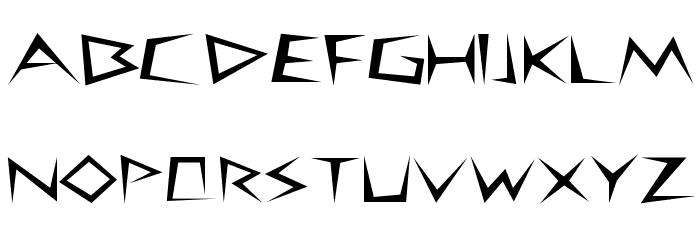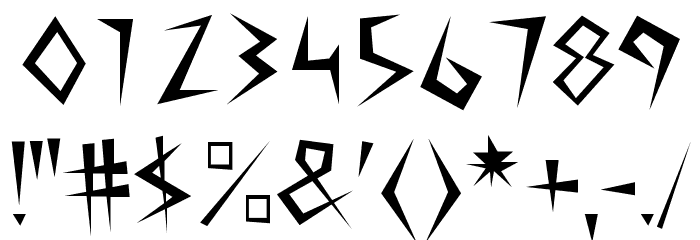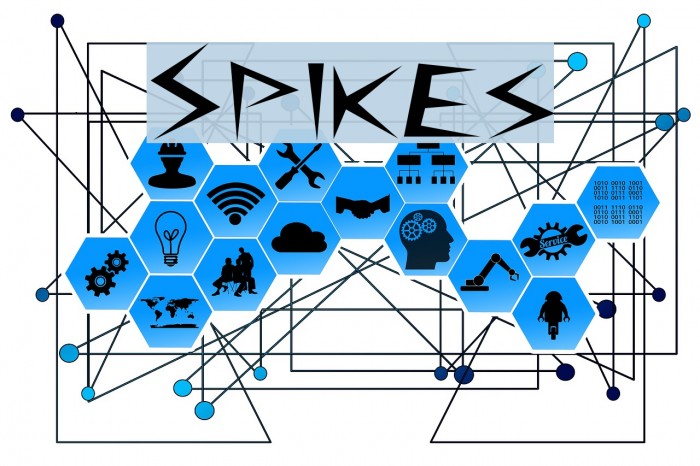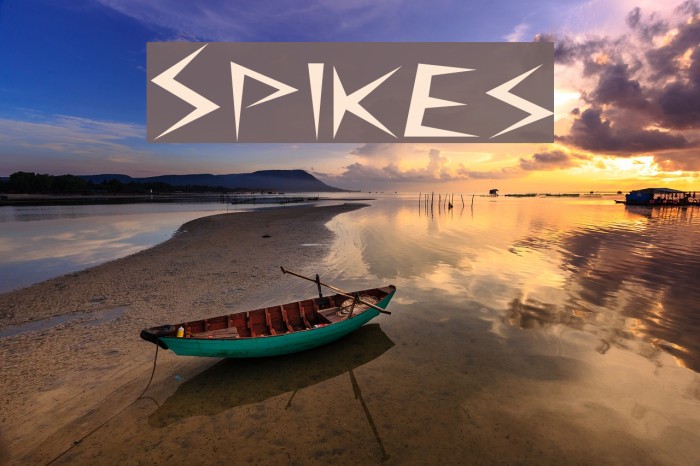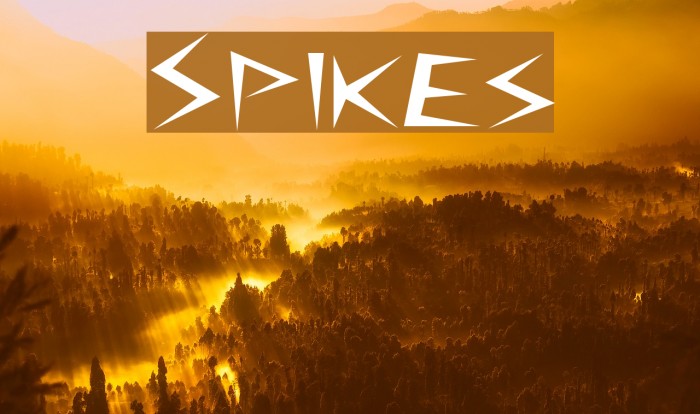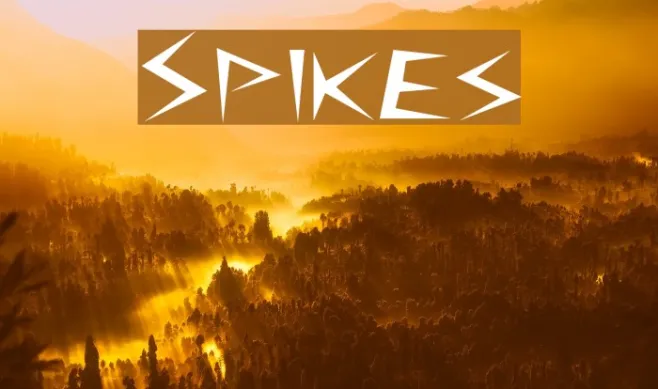
Spikes Font
This font features a bold and edgy design with sharp, angular lines that create a sense of movement and intensity. Each character is crafted with pointed edges and dynamic shapes, giving it a distinct and aggressive appearance. The uppercase and lowercase letters maintain a consistent style, emphasizing the font's unique spiky aesthetic. Numbers and special characters are equally stylized, ensuring a cohesive look across all elements. This font is ideal for projects that require a striking and unconventional typeface, making it perfect for attention-grabbing headlines or creative branding.
A bold, angular font with sharp, spiky edges for a dynamic and intense look.
- Proposed Projects: Ideal for music album covers, extreme sports branding, video game titles, and edgy fashion labels.
- Overall Style: Modern, Edgy